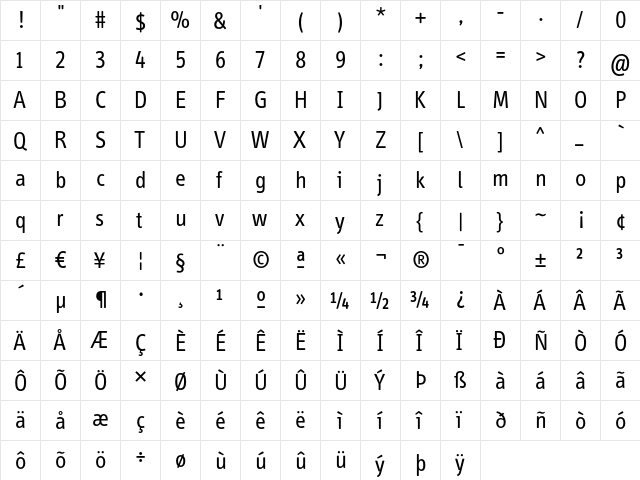
InfoDispRegular Roman
Design Context for InfoDispRegular Typeface
InfoDispRegular takes a measured approach to typography — its balanced proportions and neutral character make it a reliable workhorse for both digital and print work.